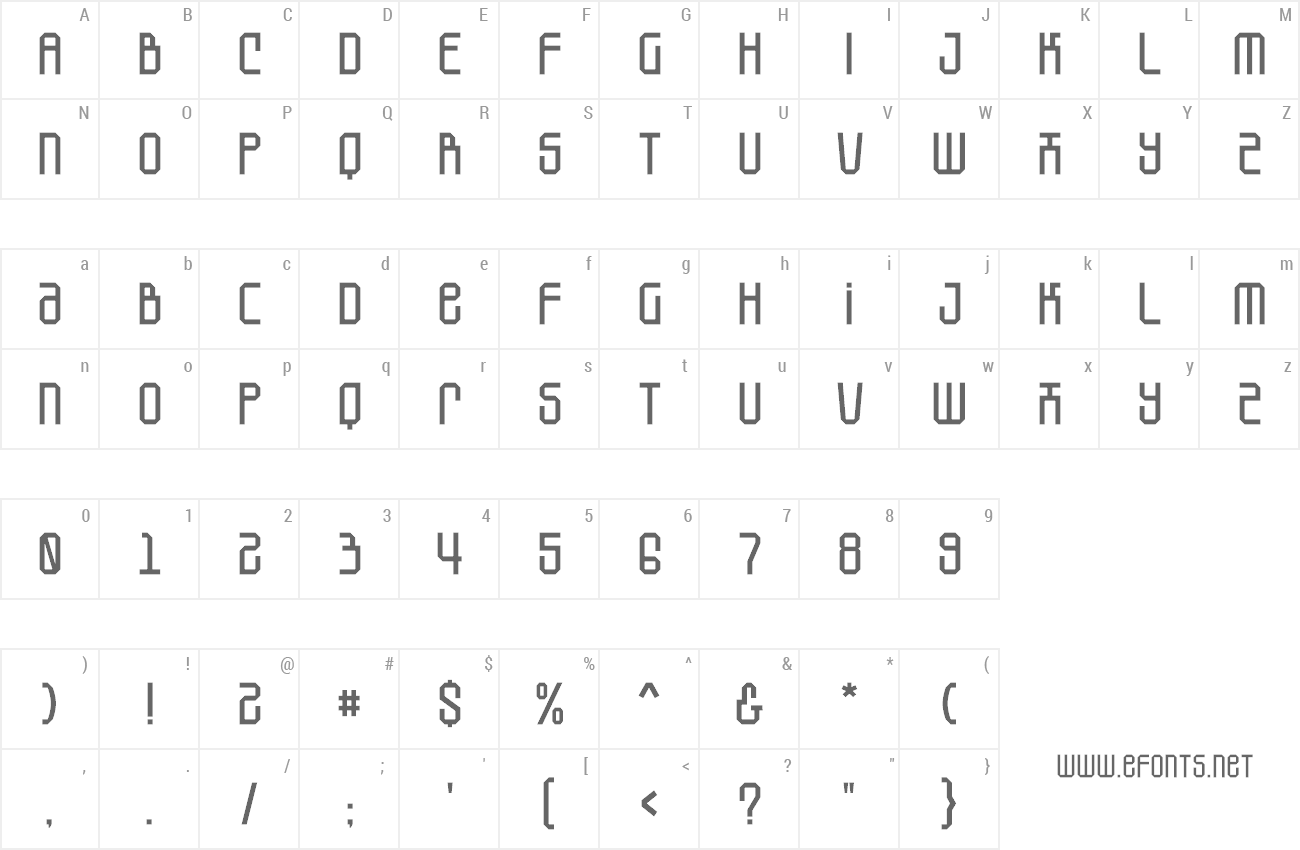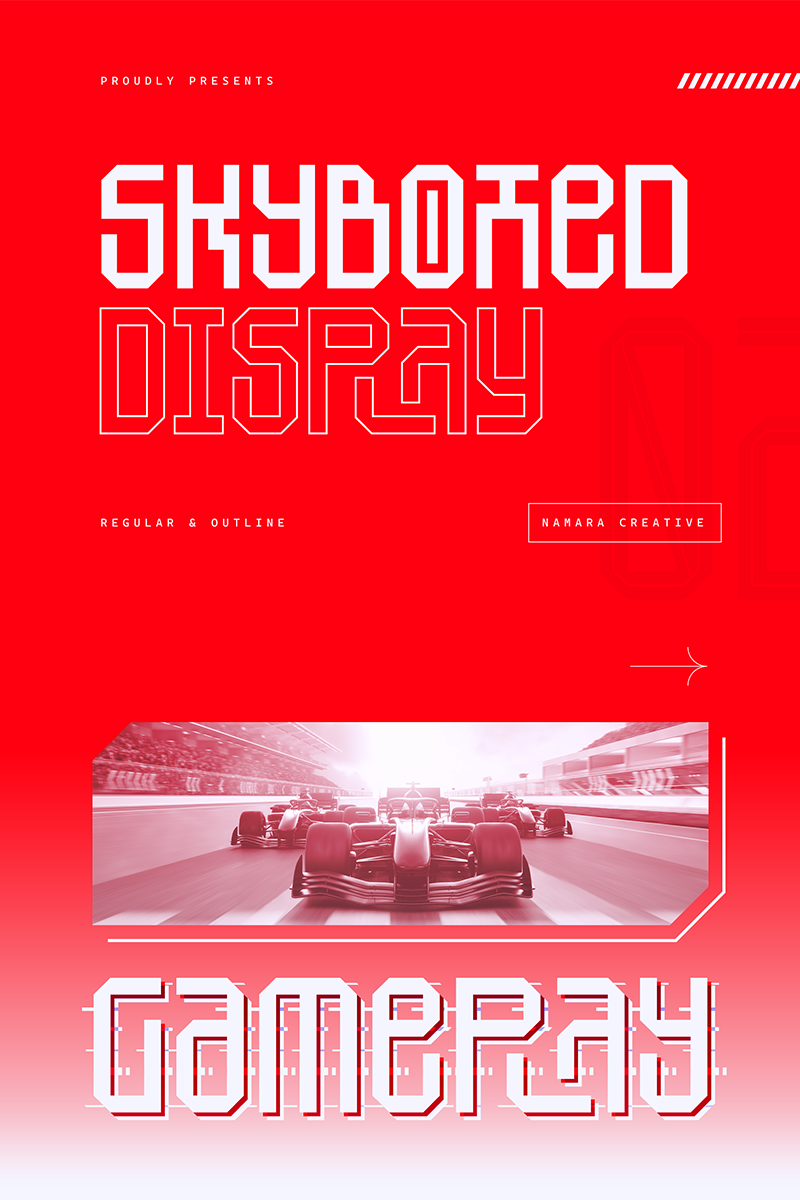
Preview and download SkyBoxed Font. Created by Namara Creative in Techno Various styles with Free for personal use license.
| Font name: | SkyBoxed |
| Author: | Namara Creative |
Experience the next level of typography with SkyBoxed � a modern futuristic display font. Powerful font boasts a cutting-edge design inspired by strength and assertiveness. NOTE : - This font is PERSONAL USE ONLY, NO COMMERCIAL USED ALLOWED. - Link to purchase Full Version and Commercial license here https://onedsgn.com/product/skyboxed-display |